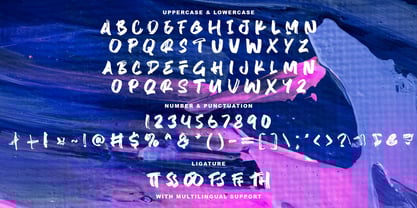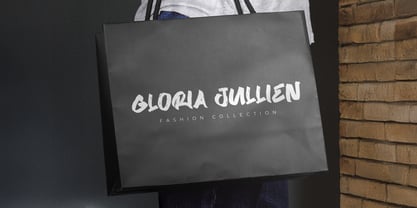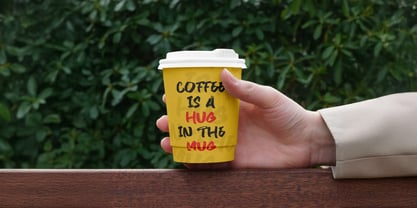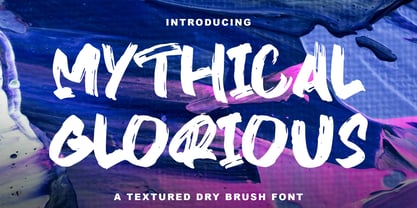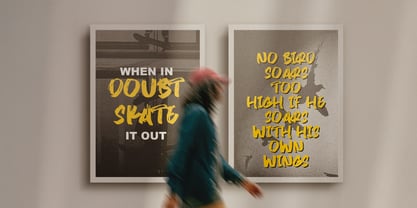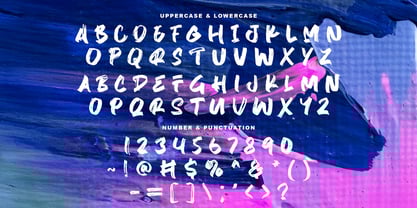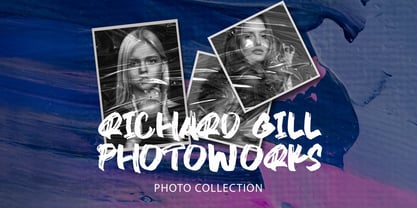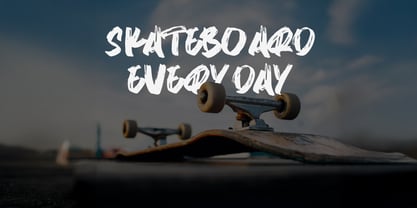
Mythical Glorious
by Stringlabs Creative Studio
The Mythical Glorious Font Family was designed by Virgiawan Listanto and published by Stringlabs Creative Studio. Mythical Glorious contains 1 styles.
Mythical Glorious is a powerful and authentic handbrush font that captures a raw, untamed energy. Its bold, textured strokes and dynamic flow give it a truly unique character, making it the perfect choice for projects that demand a strong, personal touch. Whether you're designing a band's album cover, a gritty poster, or a striking brand identity, this font delivers a dramatic, hand-lettered feel that's full of passion and life, ensuring your work stands out with genuine intensity.